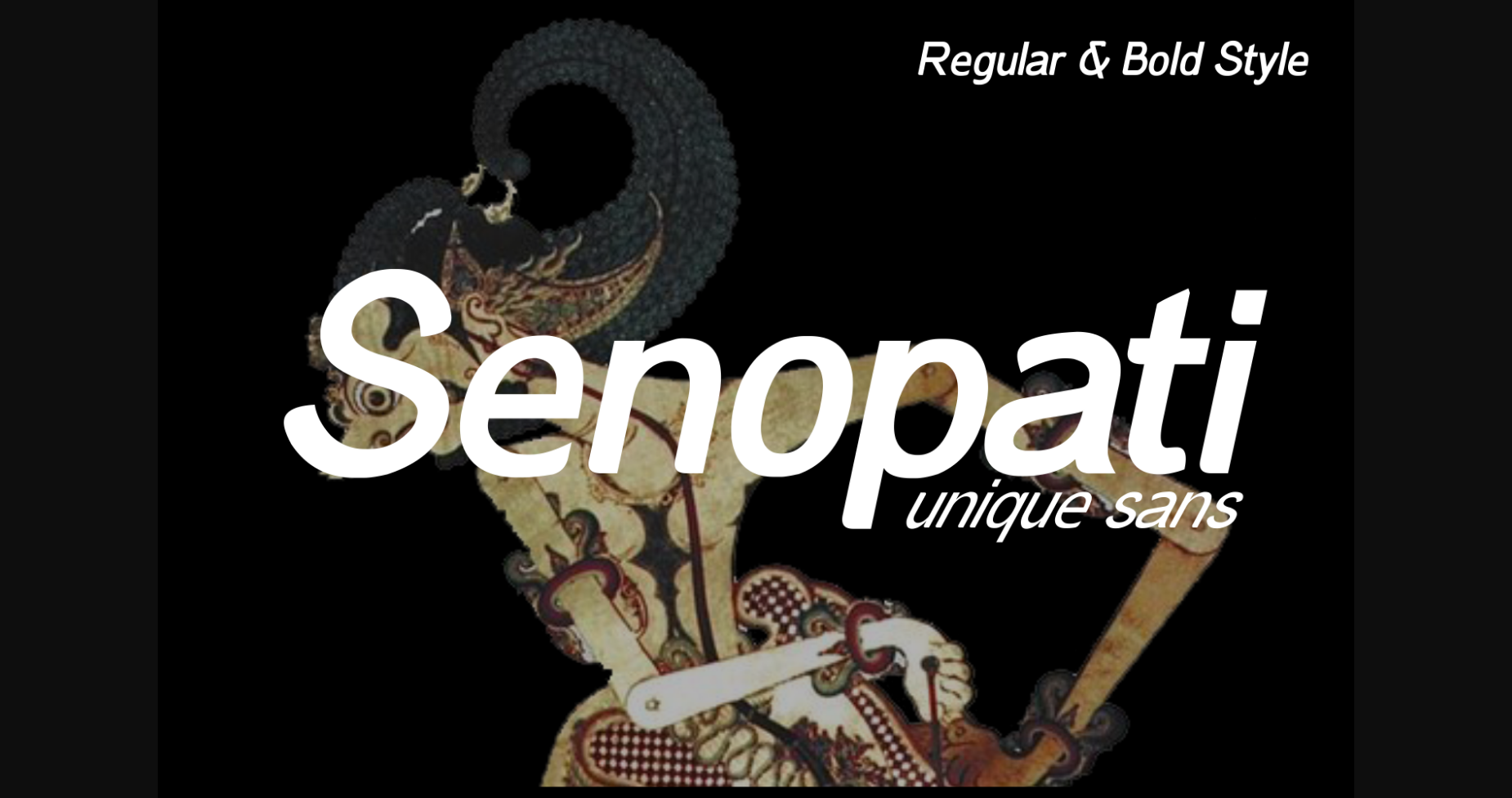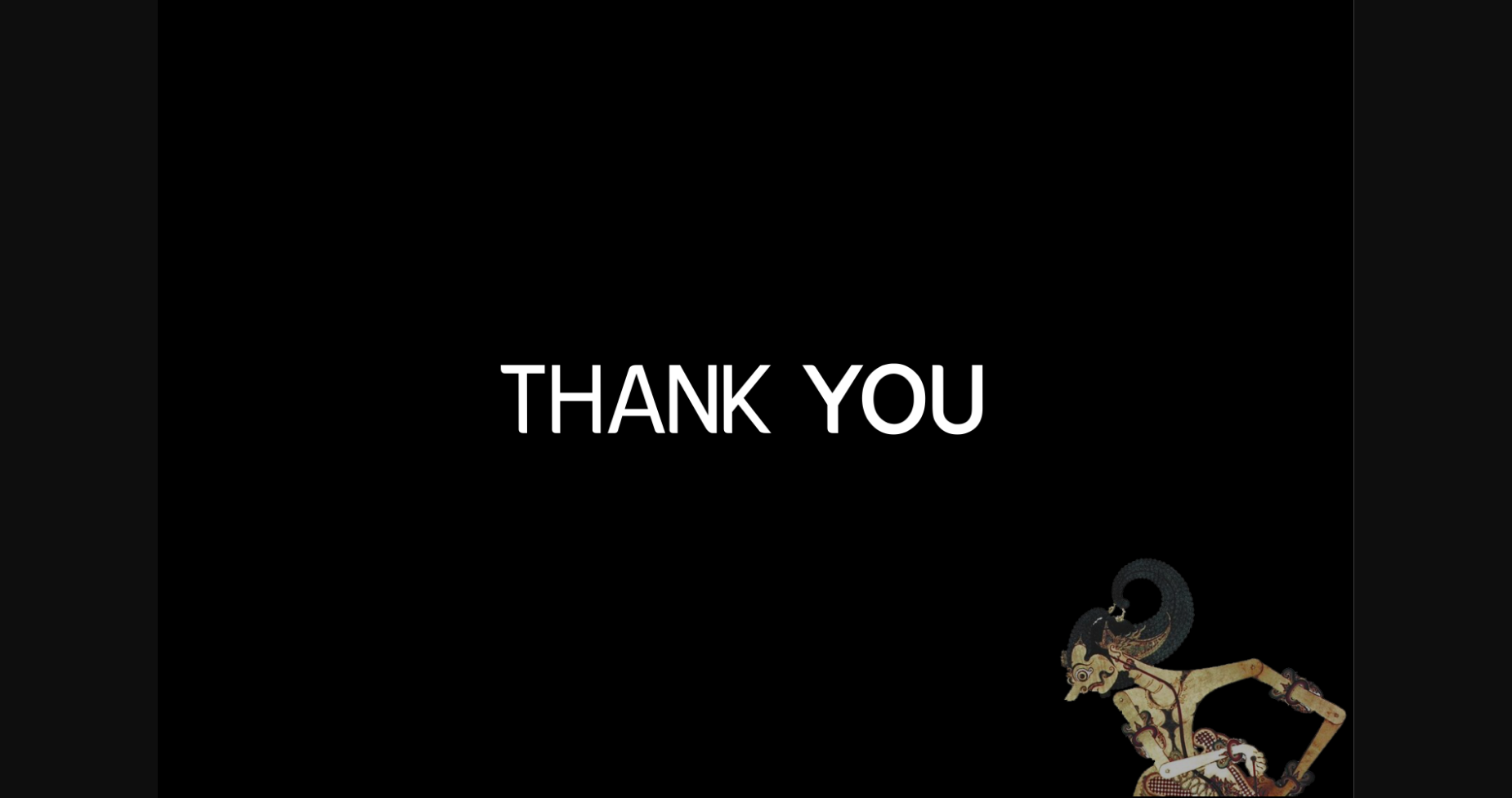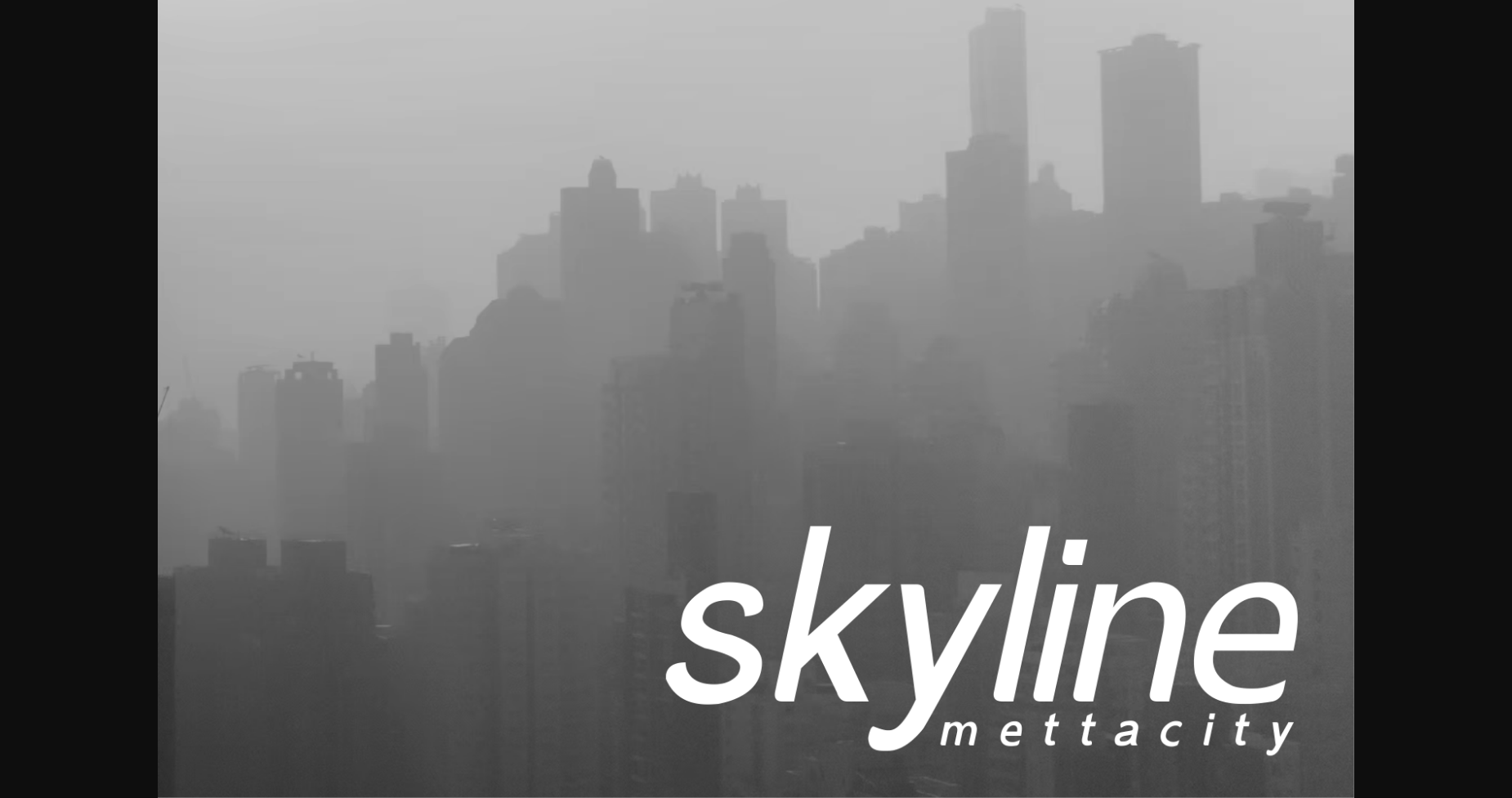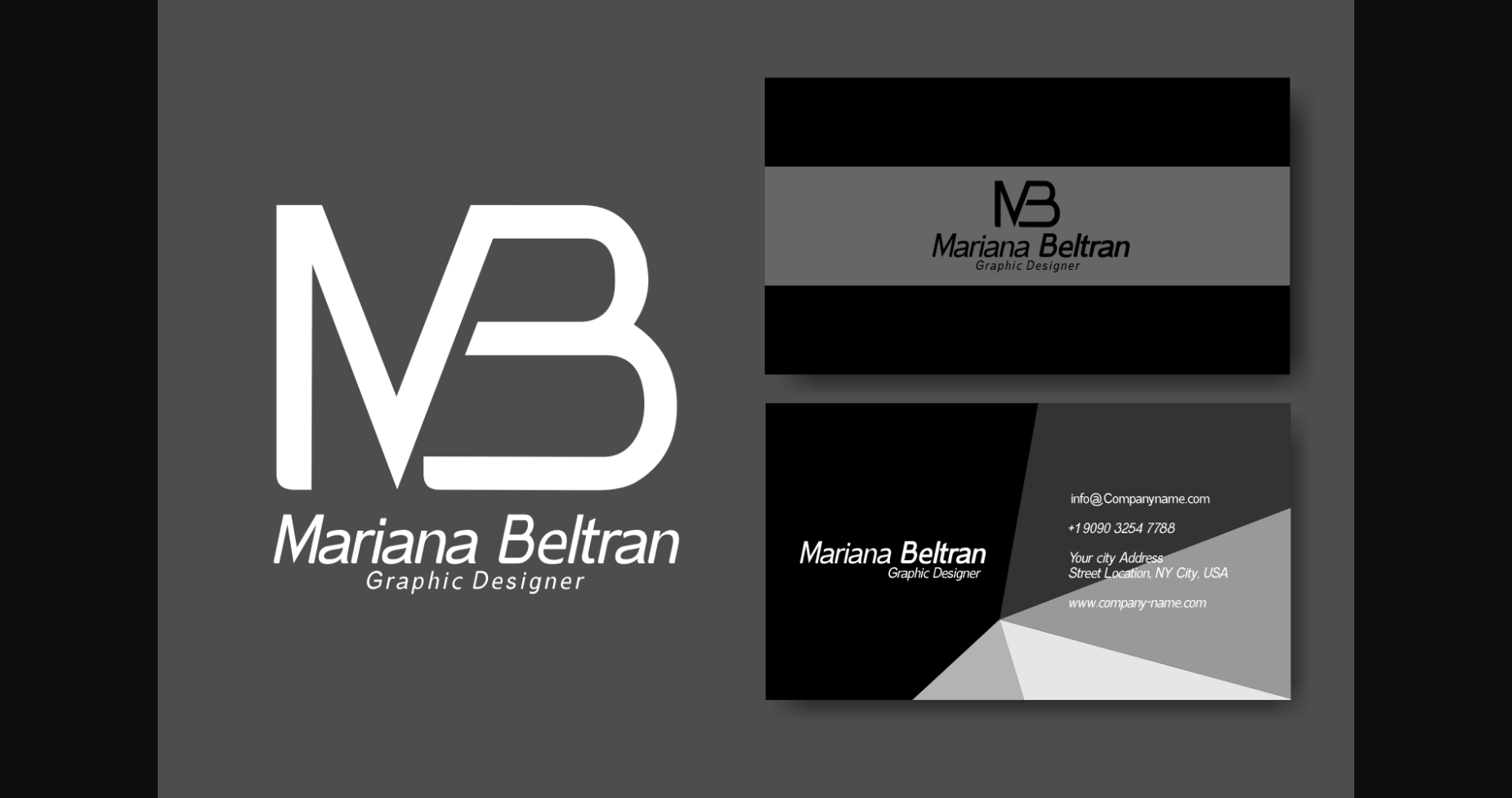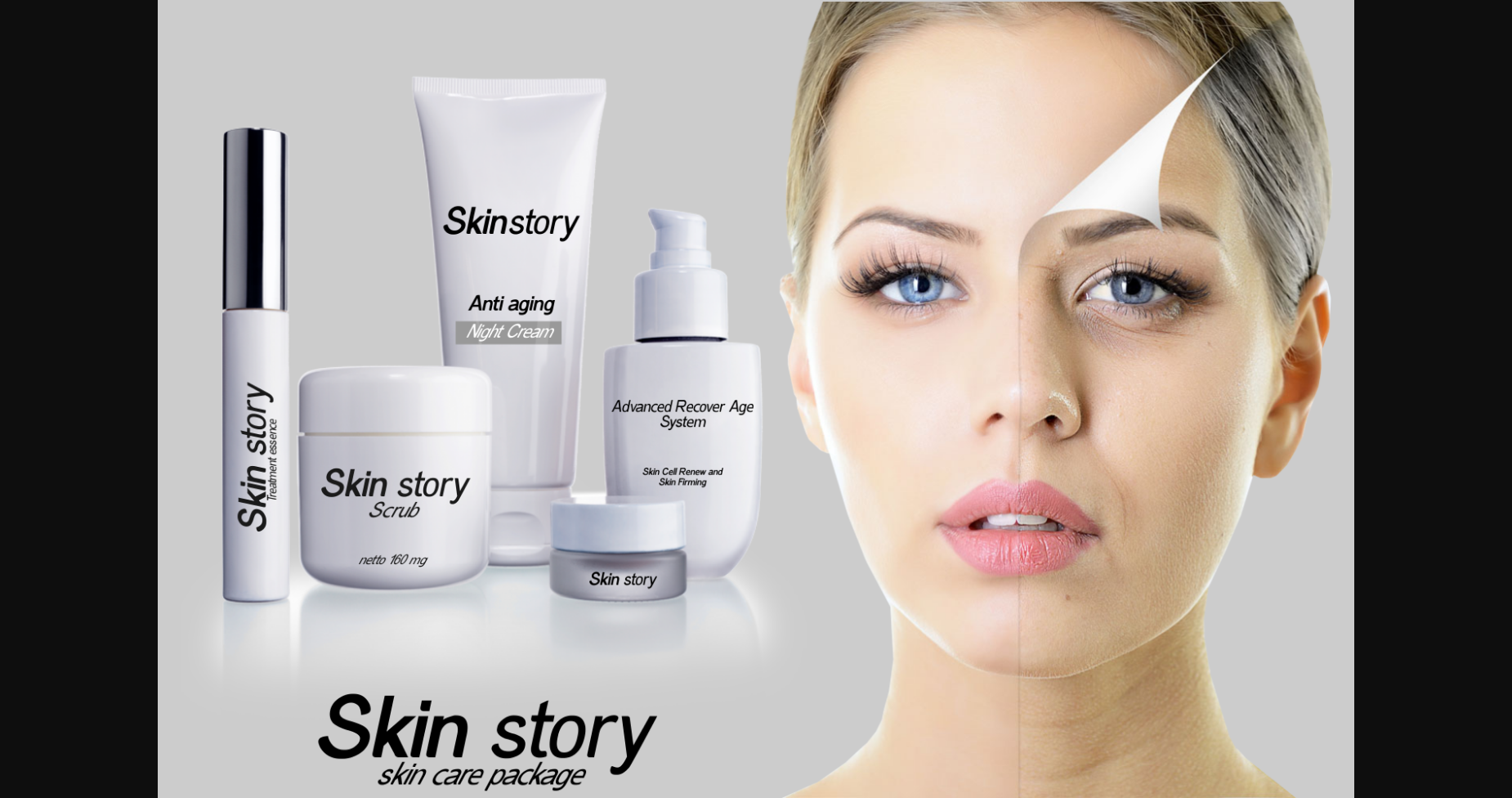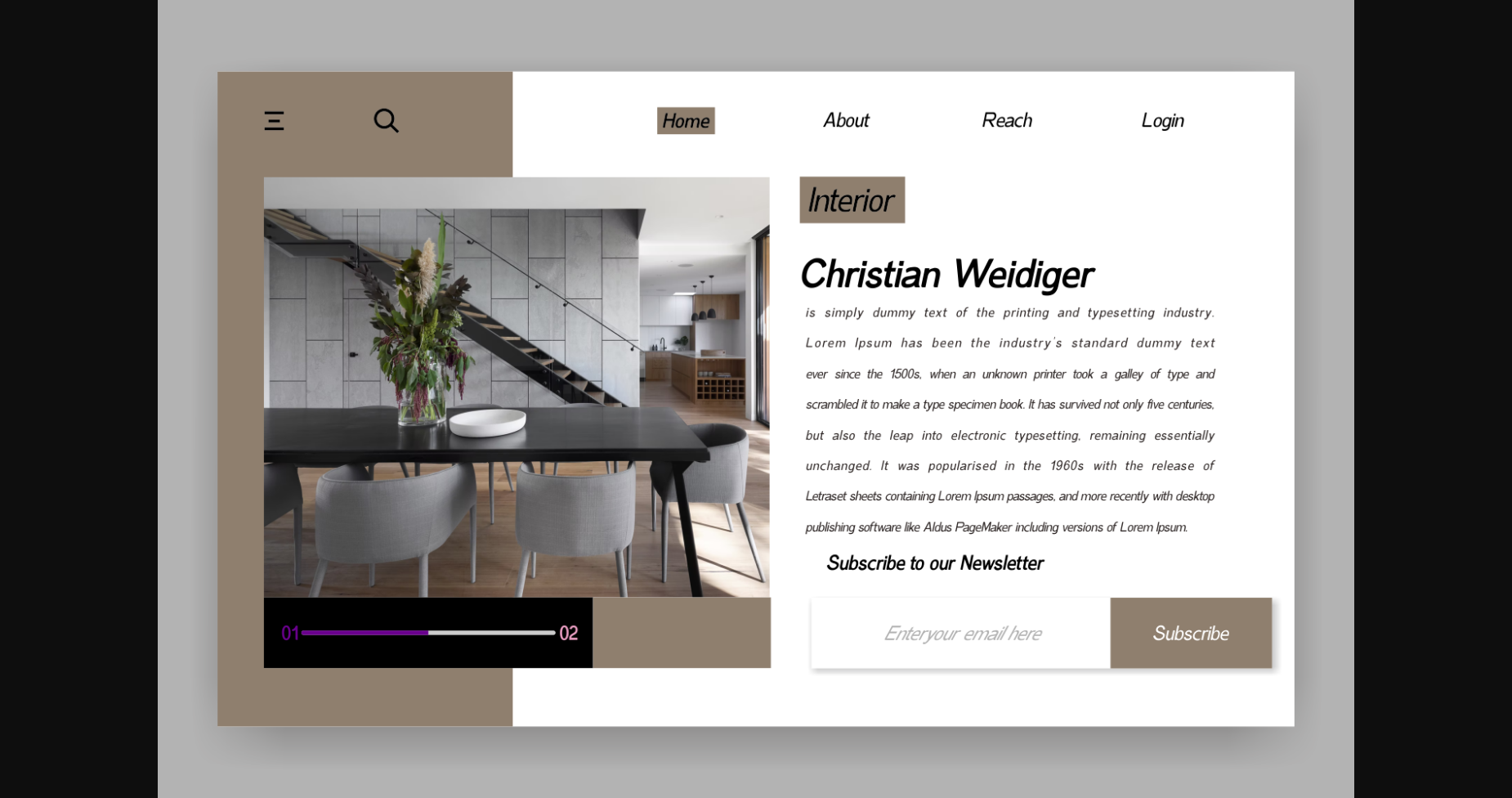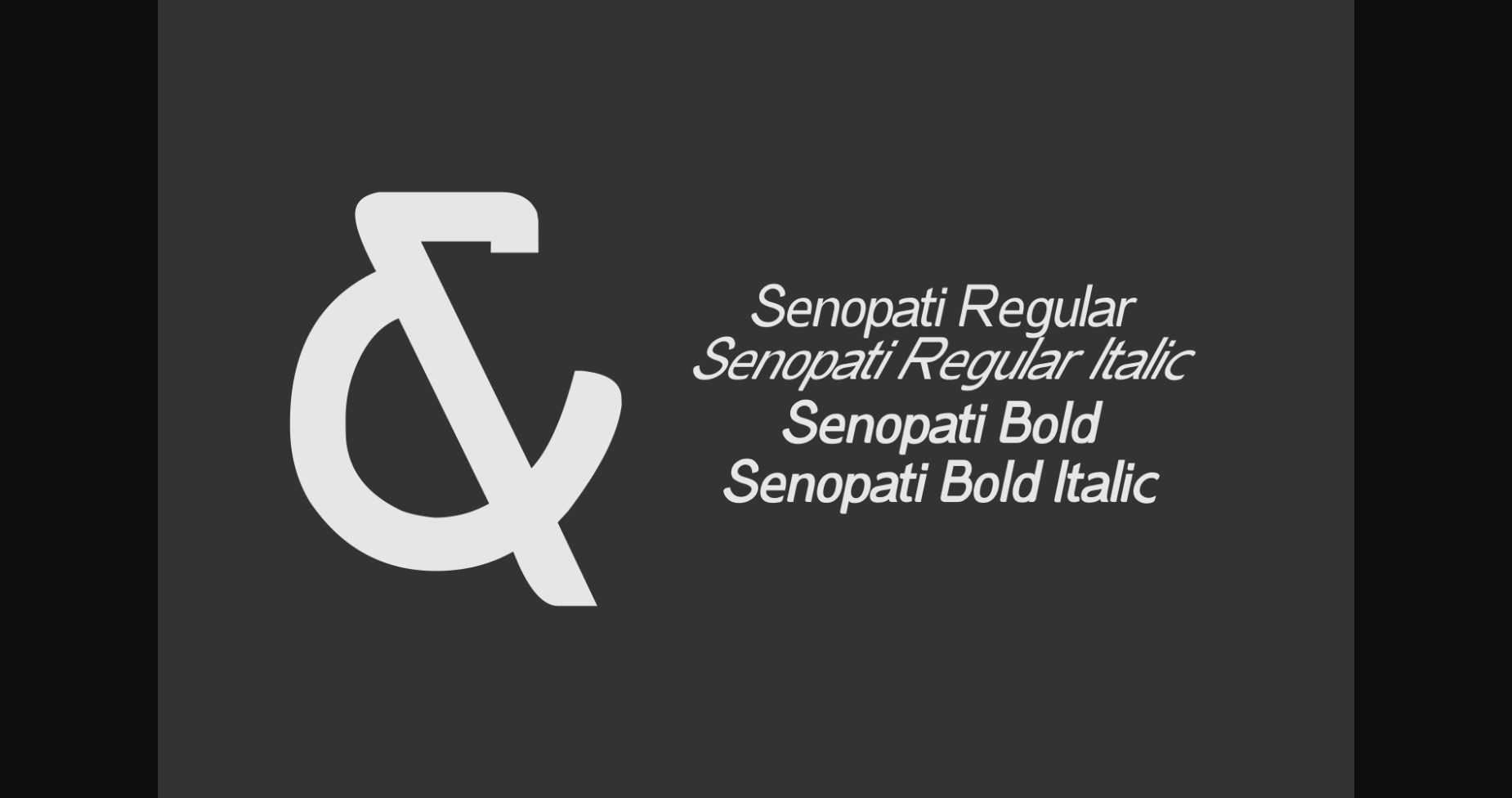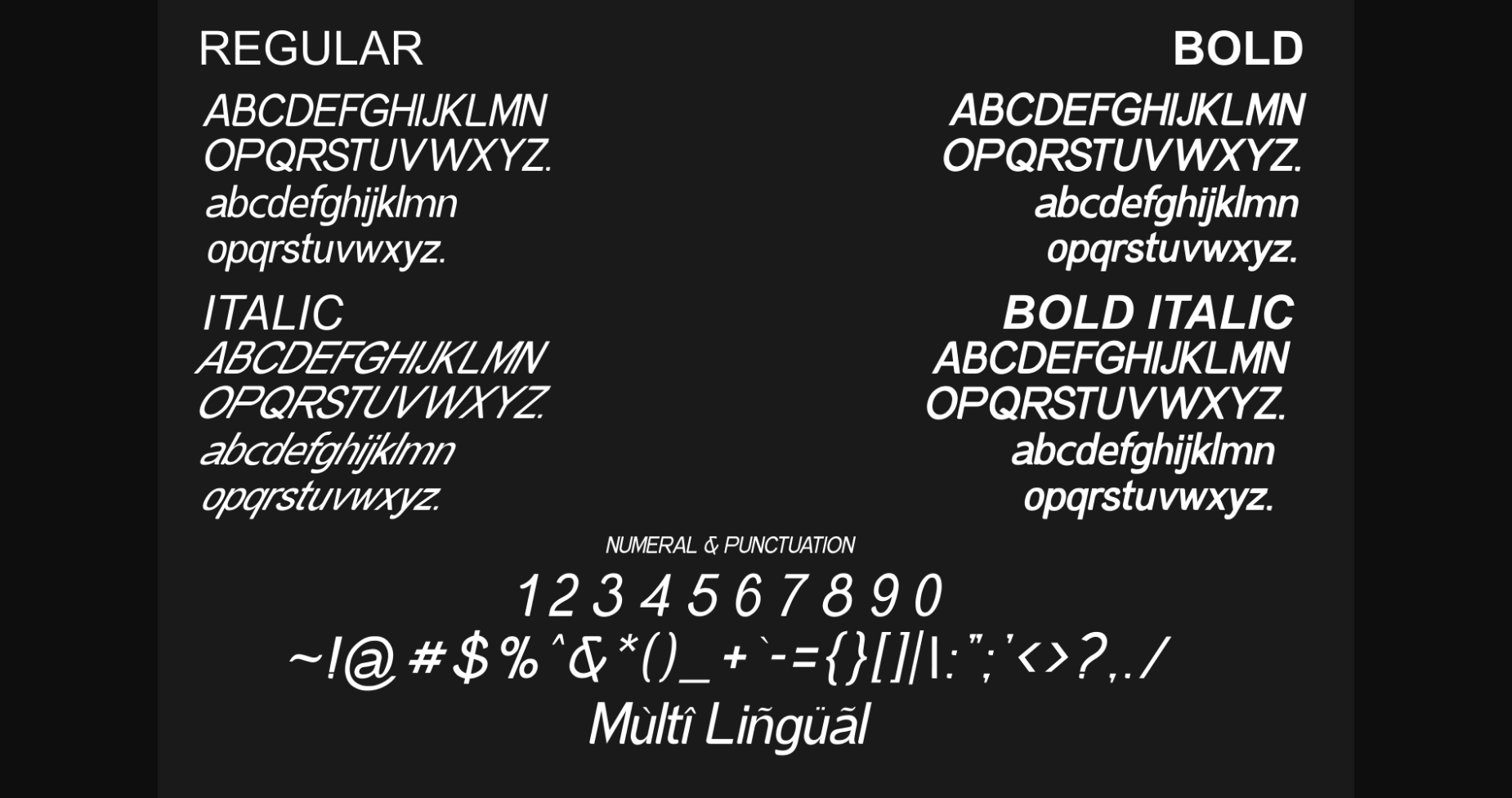
HomeSans Serif FontsSenopati Font Sans Serif Fonts Senopati Font FacebookXPinterestWhatsApp 1 of 10 ... Senopati Font Poster 2... Senopati Font Poster 3... Senopati Font Poster 4... Senopati Font Poster 5... Senopati Font Poster 6... Senopati Font Poster 7... Senopati Font Poster 8... Senopati Font Poster 9... Senopati Font Poster 10... About Senopati Font Senopati is a simple and unique sans serif font. It can easily be matched to an incredibly large set of projects, so add it to your creative ideas and notice how it makes them stand out! DOWNLOAD NOW People also explored Night Owl Font Be Bright Font Magical Shiny Font Sangkariblis Font Winter Vintage Font Cahaya Surya Font Memory Mellody Font Mushmouth PB Before Sunday Font 327 0 TagsSenopati Font Previous articleLavenice FontNext articleRainer Font LEAVE A REPLY Cancel reply Comment: Please enter your comment! Name:* Please enter your name here Email:* You have entered an incorrect email address! Please enter your email address here Website: Save my name, email, and website in this browser for the next time I comment. Personal Use Free Green Fuz Personal Use Free Read more about this font Short Message Personal Use Free Read more about this font Legacy Personal Use Free Read more about this font Marthissa Personal Use Free Read more about this font BLOG Using Fonts in Digital Marketing: Tips to Strengthen Your Brand Identity In the realm of digital marketing, every visual element plays a crucial role in shaping a brand's identity, and fonts are no exception. The... Top 7 Google Fonts Alternatives for Faster and Privacy-Friendly Web Design (2025) Elegant Wedding Invitation Fonts – Handwritten & Script Fonts Free Fonts Risk: Why Free Fonts Can Be Dangerous for Designers